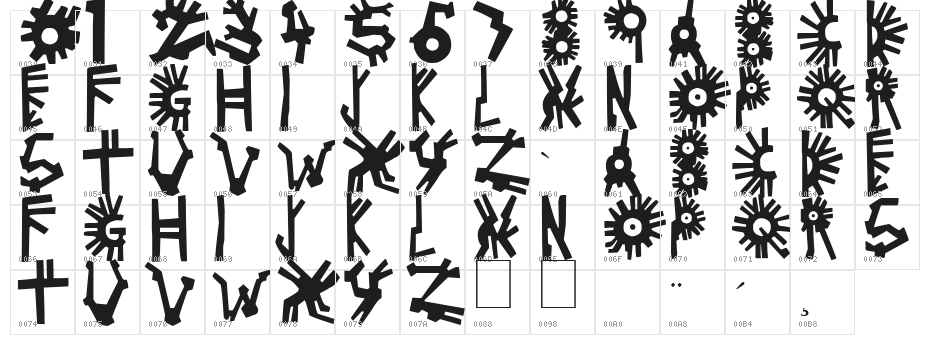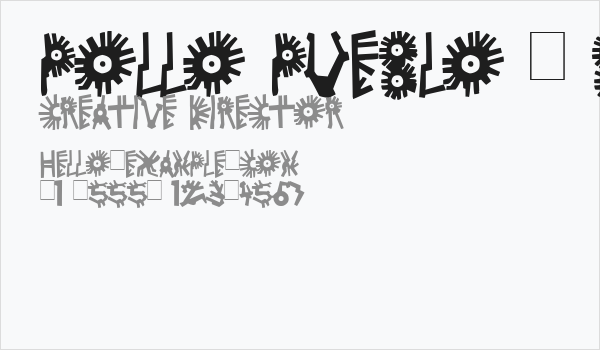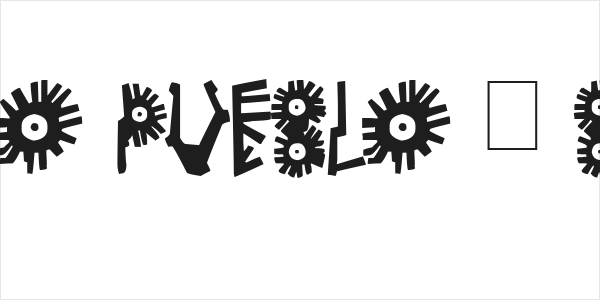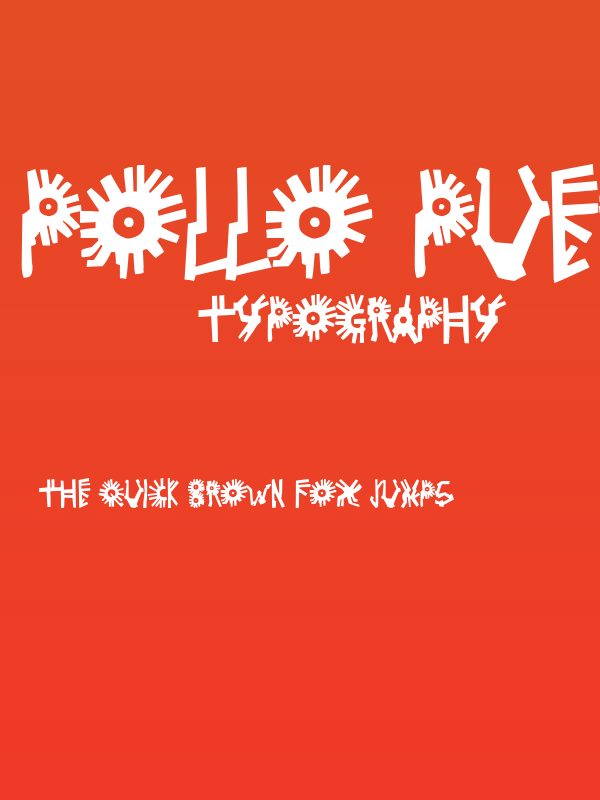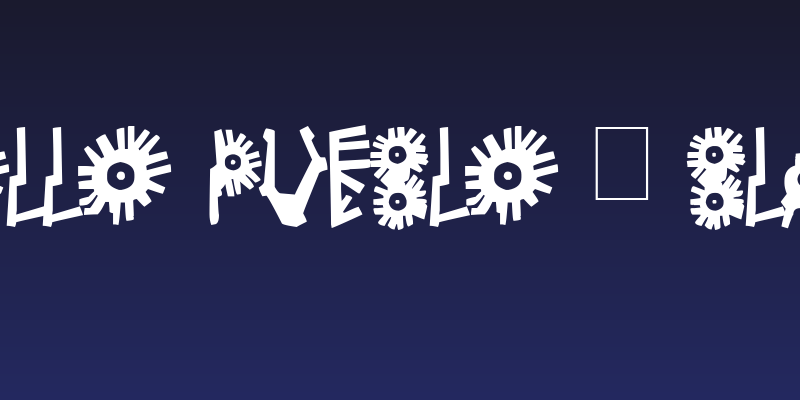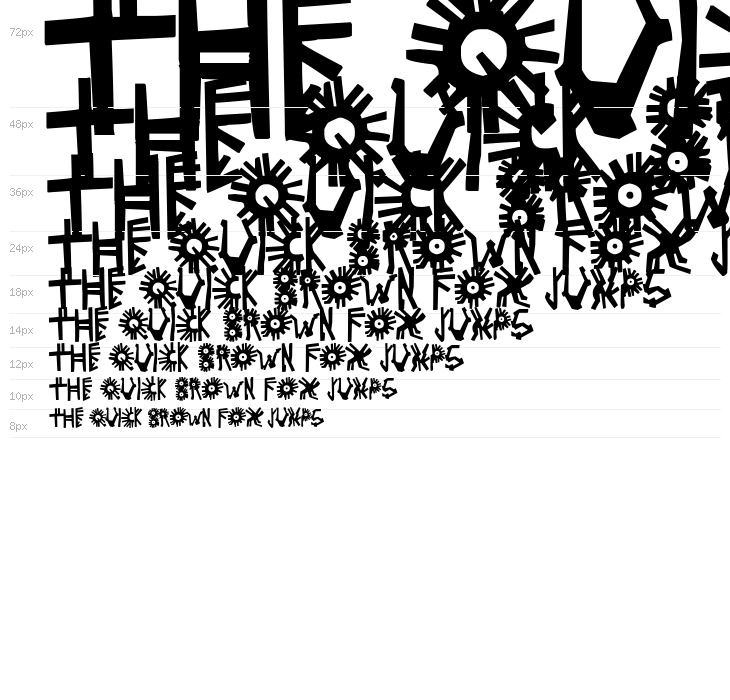
Pollo Pueblo - Black Font
Pollo Pueblo - Black Description
This font features a bold and striking design with highly decorative and abstract letterforms. Each character is uniquely crafted with geometric shapes and sharp angles, creating a visually dynamic and energetic appearance. The uppercase letters are particularly distinctive, with some characters resembling abstract art pieces. The numbers and special characters maintain this artistic theme, making the font suitable for creative and unconventional projects. The overall style is highly decorative, with a playful yet edgy aesthetic that stands out.
| Use Case | Logos, Posters, Album covers |
| Proposed Projects | Ideal for artistic projects, posters, album covers, and creative branding. |